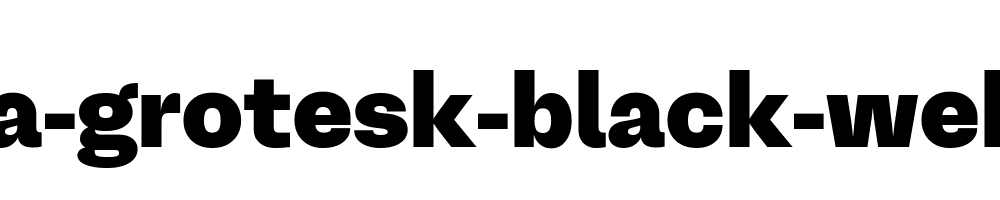
About mena-grotesk-black-webfont
Font Weight Name: Mena Grotesk Black Webfont, designed by an unnamed artist, presents a bold and powerful typeface that commands attention with its thick, heavy strokes and strong presence. The font family it belongs to is not specified, but the clean lines and sharp angles indicate a modern and minimalistic design aesthetic. The closed counters and sharp apexes give the characters a sleek and sophisticated look that exudes elegance and professionalism. The lack of bilateral serifs and the subtle curve of the arcs contribute to its neutral and understated beauty, making it perfect for a wide range of design applications. With its strong shoulders and sturdy stems, this font is versatile and can adapt to various styles and moods, whether it’s used for a serious corporate brand or a more friendly and approachable tone. Its familiar yet daring qualities make it a reliable choice for designers looking to make a statement without sacrificing readability or style. The font’s warmth and inviting nature are subtly balanced by its cold, technical precision, creating a harmonious blend of classic and progressive elements that appeal to a modern audience. In conclusion, Mena Grotesk Black Webfont is a versatile and expressive typeface that can elevate any design project with its unique blend of elegance, strength, and sophistication.